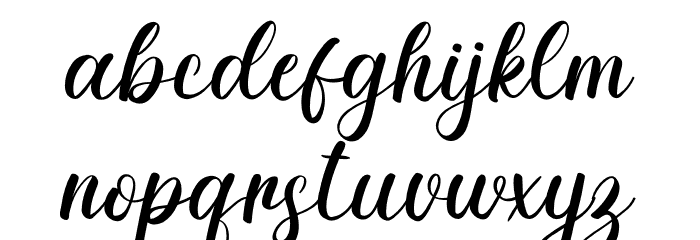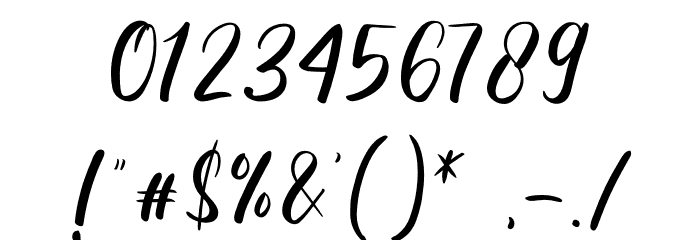
Delinda Agatha Font
This font features a flowing, cursive style that exudes elegance and sophistication. The letters are interconnected with smooth, sweeping strokes, giving it a handwritten appearance. The uppercase letters are bold and prominent, while the lowercase letters maintain a consistent flow, enhancing readability. Numbers and special characters are crafted with the same fluidity, ensuring a cohesive look across all text. The overall design is modern yet timeless, making it suitable for various creative applications.
A flowing, cursive font with elegant, interconnected strokes.
- Font: Delinda Agatha
- Proposed Projects: Ideal for wedding invitations, greeting cards, branding, and logo design.
- Category: Script
- Use Case: Logos, Invitations, Decorative text